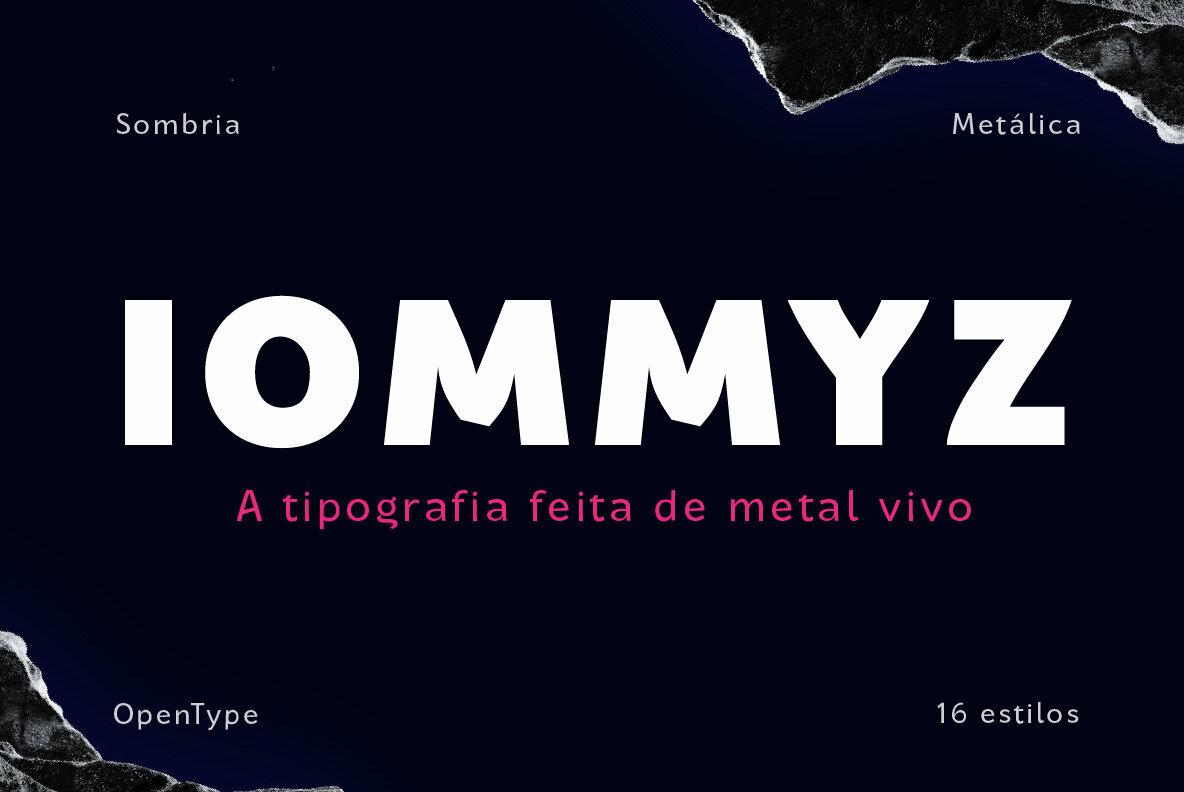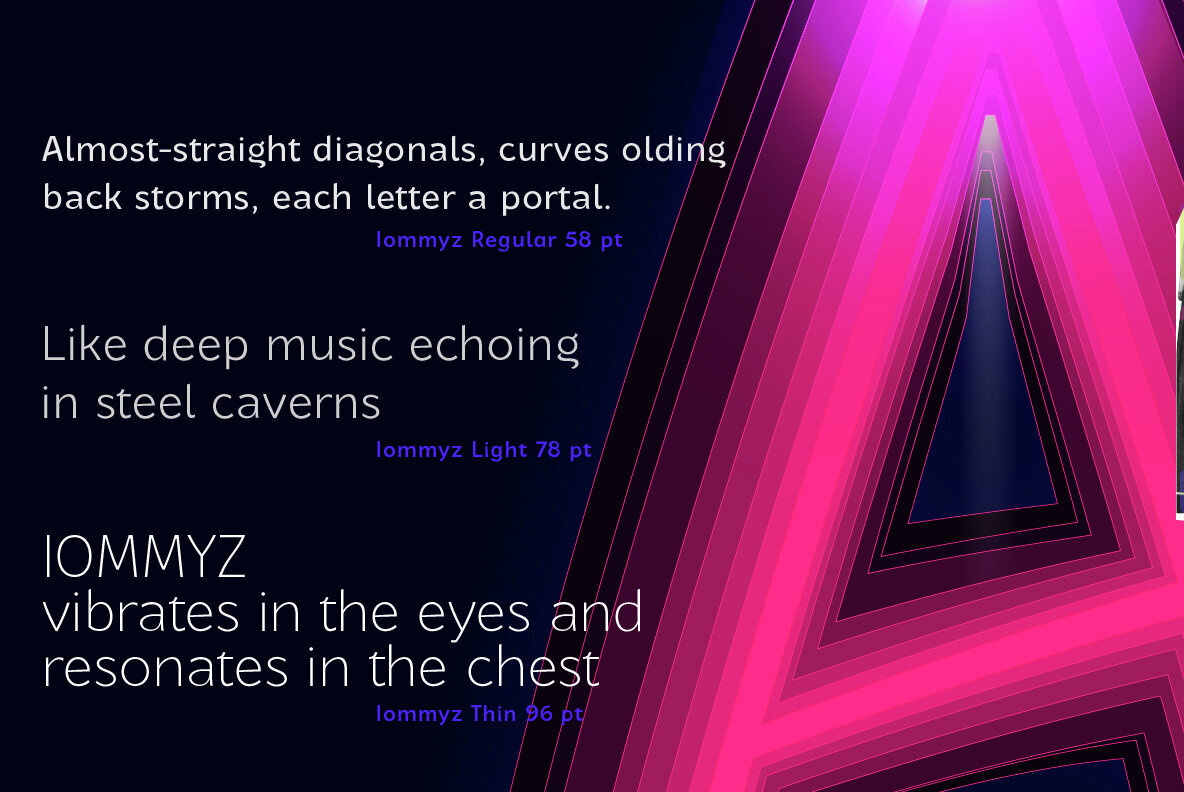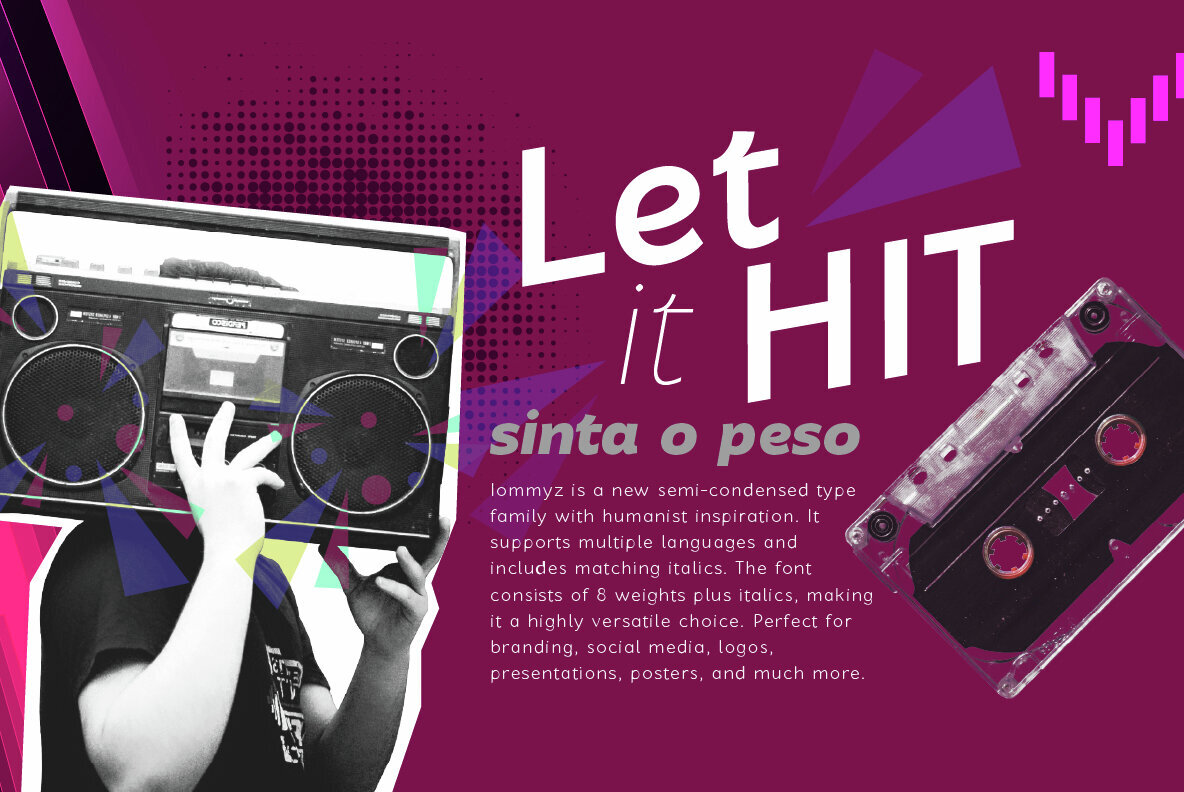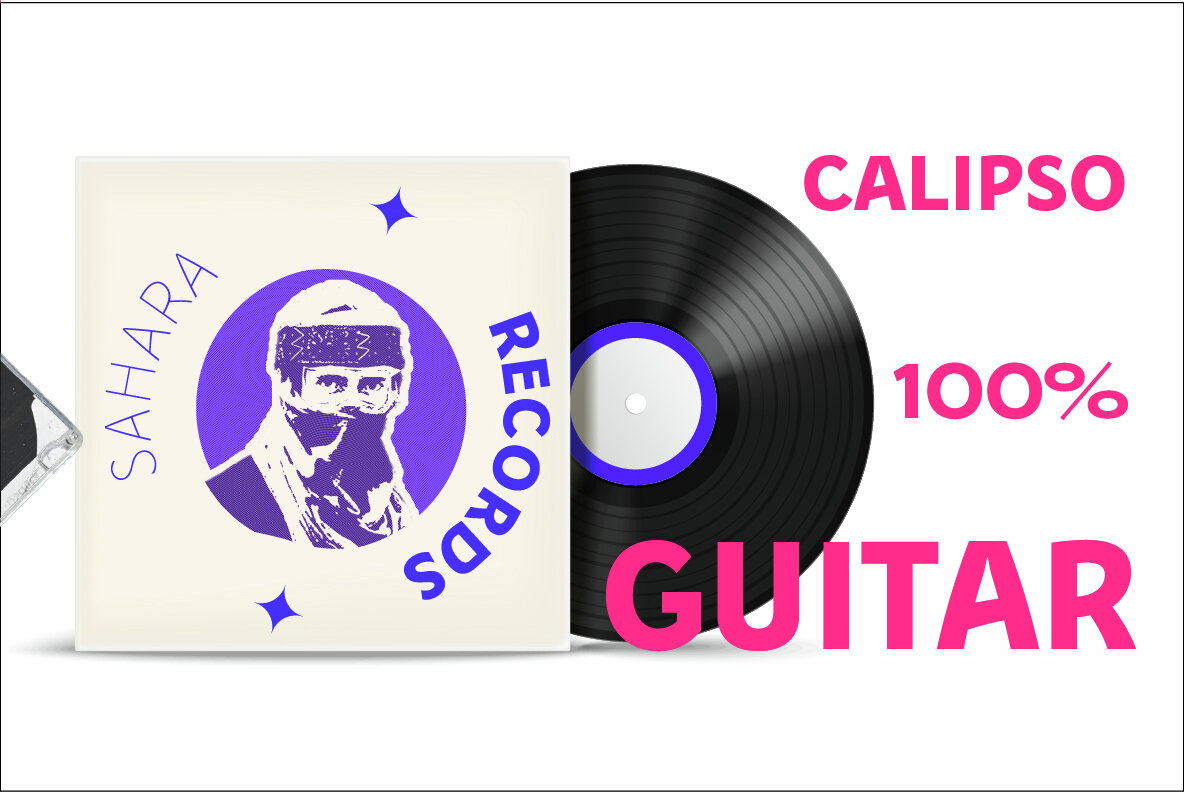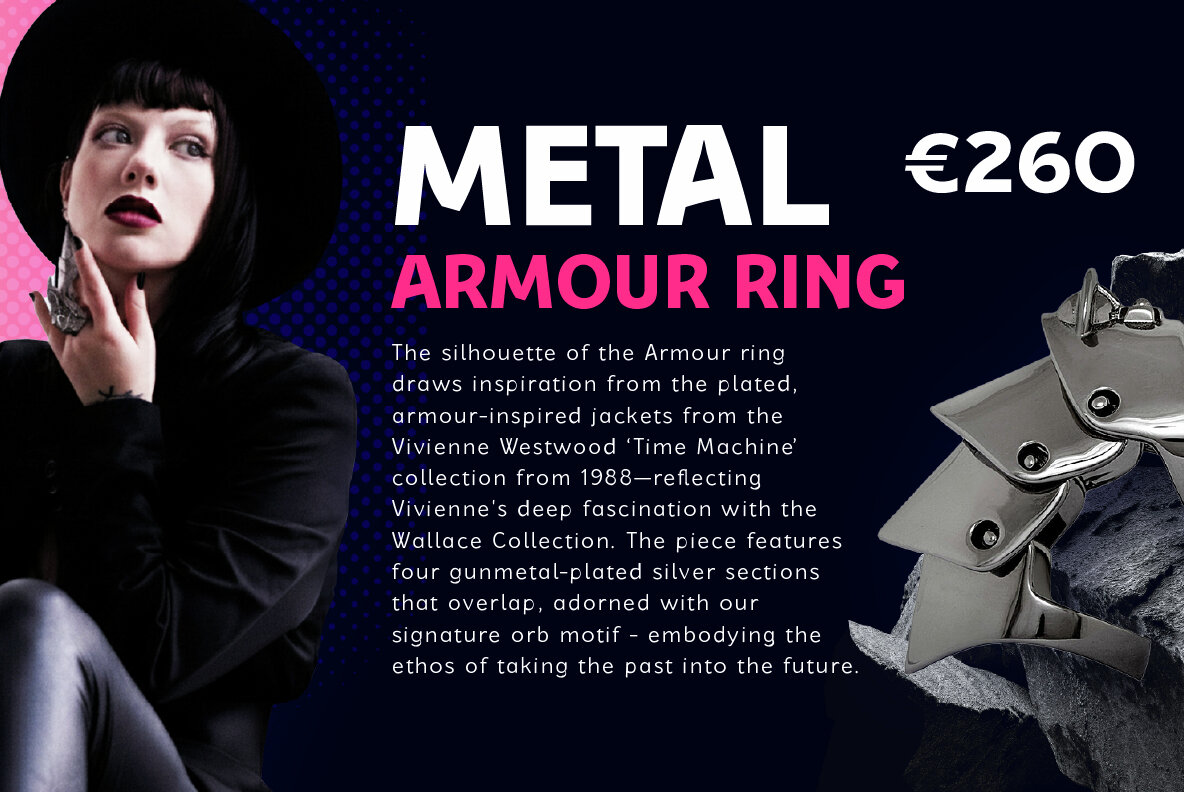
Iommyz Font
Rooted in the essence of typographic purity, Iommyz is a typeface that encapsulates tension, mystery, and raw intensity. Inspired by ancestral symbols and the formidable design of bat fangs, it offers a dramatic aura ideal for projects deeply intertwined with themes of drama, horror, and heavy music. Iommyz is the perfect choice for book covers, album art, and festival posters, channeling the untamed energy inherent to rock and heavy metal. Crafted as a homage to Tony Iommi and Ozzy Osbourne, iconic figures of Black Sabbath, the typeface embodies a dark and rebellious spirit. Its uppercase letters make a striking impact, offering a powerful presence in titles, while the lowercase lends a smoother, rhythmic flow to subtitles. Modeled from the Époque typeface, Iommyz distinguishes itself with straighter diagonals and subtle outer curves, adding to its dynamic nature.Iommyz: Typeface with Dark, Intense Energy
Iommyz is more than a mere typeface; it's an experience that brings weight, power, and darkness to your projects. Its design transforms titles into visual statements and covers into graphic landmarks.